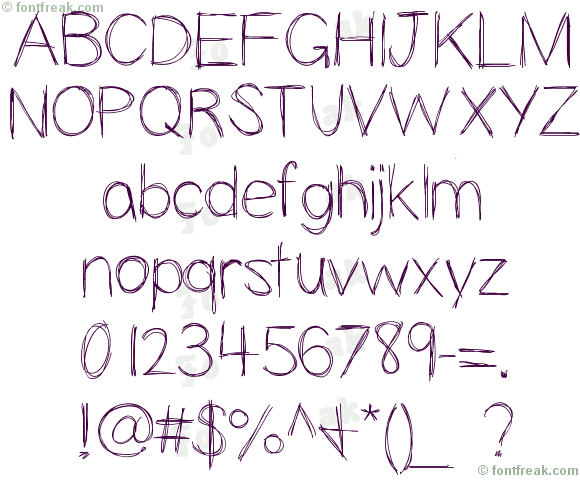
Slopness
About Slopness
Introducing the Slopness font by Vanessa Bays, a distinctive display typeface that captures attention with its unique handwritten style. This font is categorized as a decorative typeface, making it an excellent choice for creative projects that require a personal touch. Characterized by its playful, uneven strokes, Slopness features a medium stroke weight with minimal contrast, offering a casual and approachable vibe. The spacing is intentionally irregular, enhancing its free-spirited aesthetic, while the whimsical decorative elements add charm and character, making it stand out in any design.
Slopness is perfect for a variety of design applications. Its informal style makes it an ideal choice for wedding invitations where a touch of personality is desired, adding a unique flair that resonates with romance. Additionally, it can be effectively used in restaurant menus, providing a friendly and inviting feel that complements culinary creativity. The font also shines in crafting eye-catching movie posters, where its distinctive look can draw viewers' eyes and convey the film's tone. Furthermore, Slopness is suitable for branding small businesses, helping to create memorable logos that reflect a casual, approachable brand identity.
The target audience for the Slopness font includes graphic designers, small business owners, and content creators who seek to infuse their work with an element of fun and warmth. By using this font, designers can craft experiences that engage and resonate with their audience.
What truly sets the Slopness font apart is its ability to convey emotion in a playful manner, making it a versatile tool for those looking to add a personal touch to their projects. For anyone interested, the Slopness font free download is available, allowing you to explore its whimsical charm in your own designs.